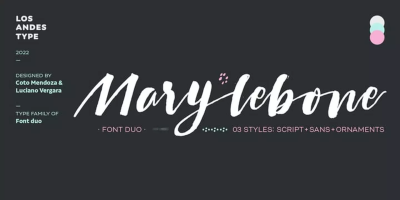
Marylebone Font Family
Marylebone is a font duo inspired by its namesake neighbourhood in central London. Marylebone was designed to compose short text for advertisements, blackboards and shop windows in coffee shops, sm…